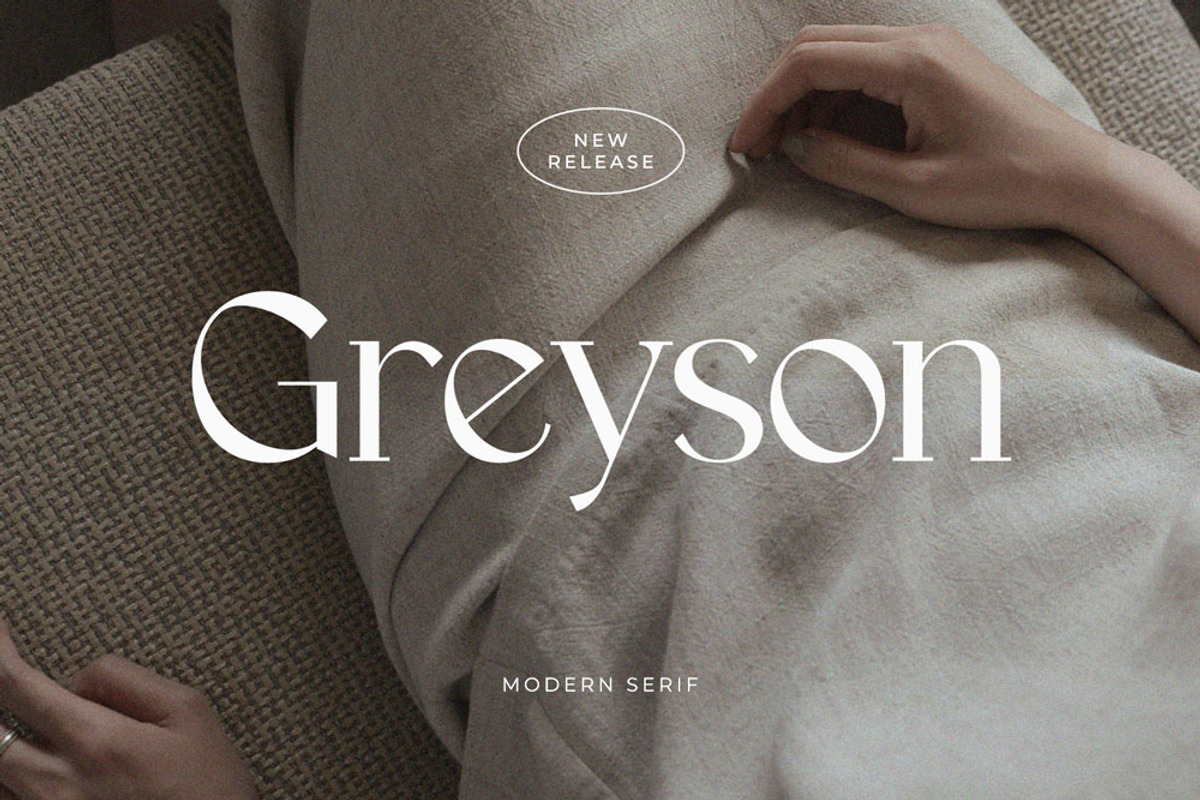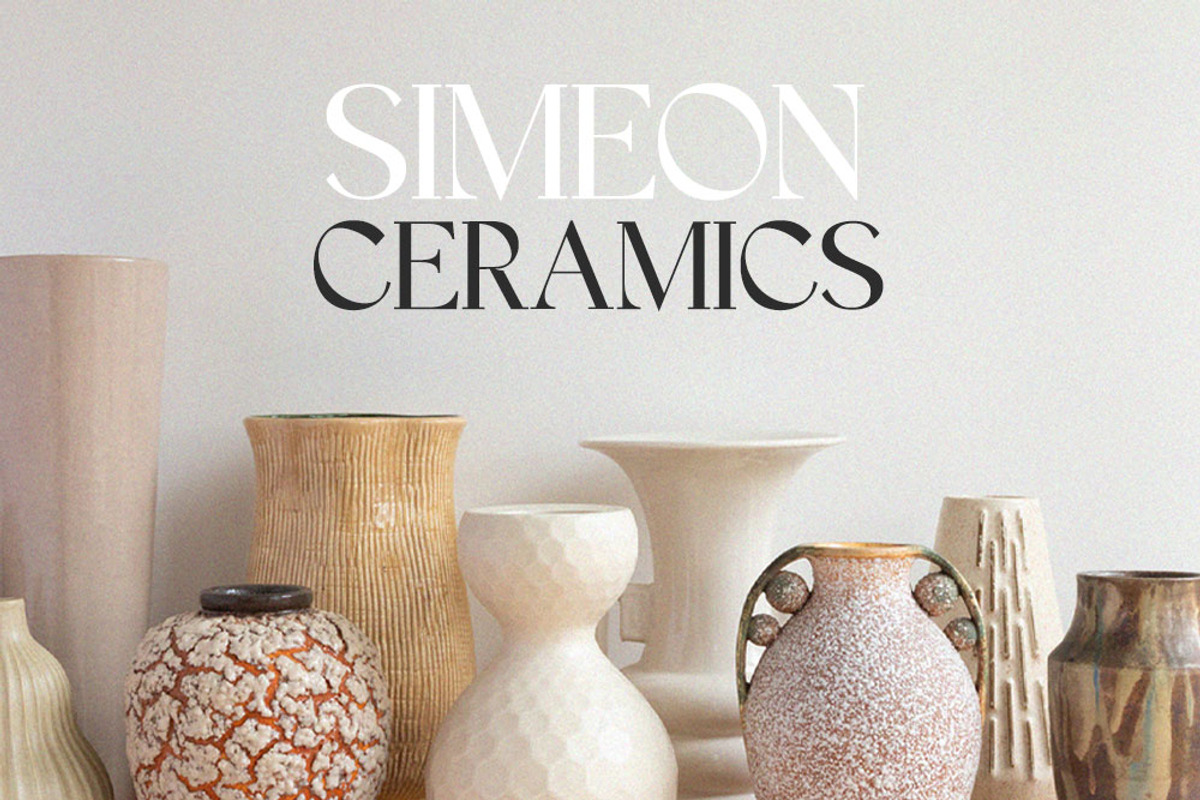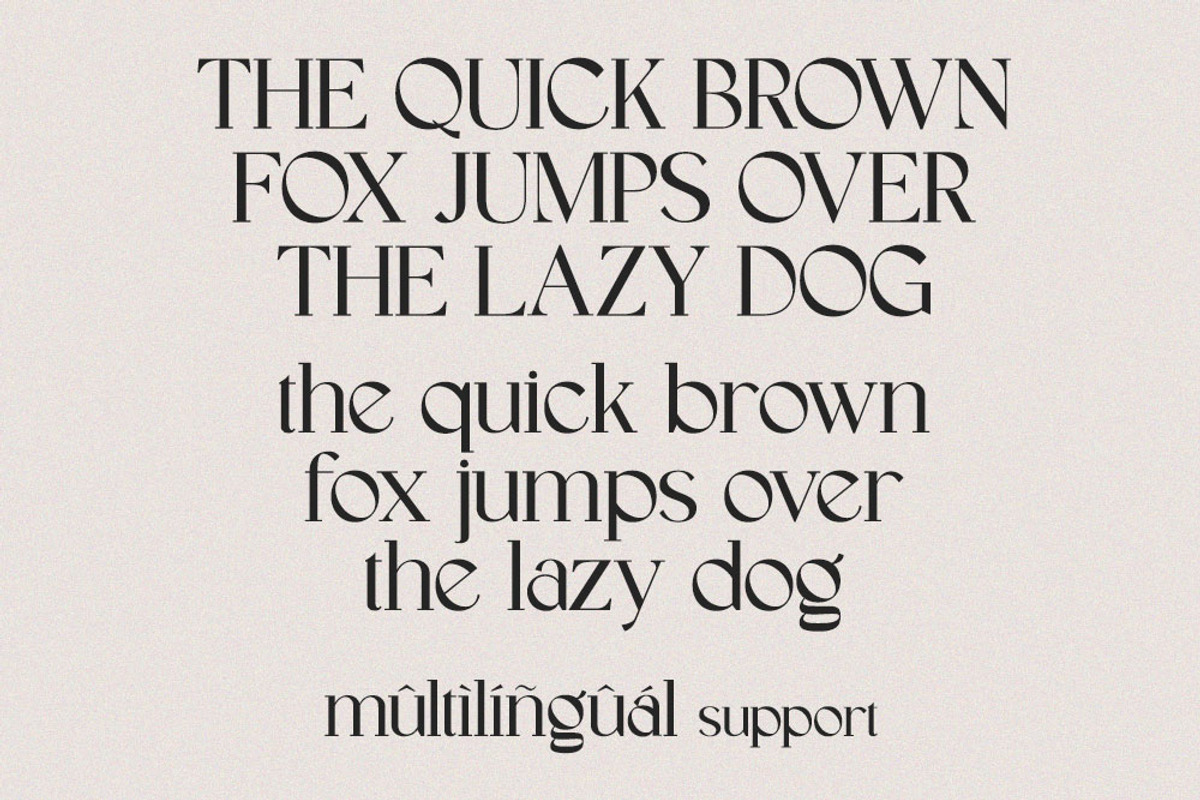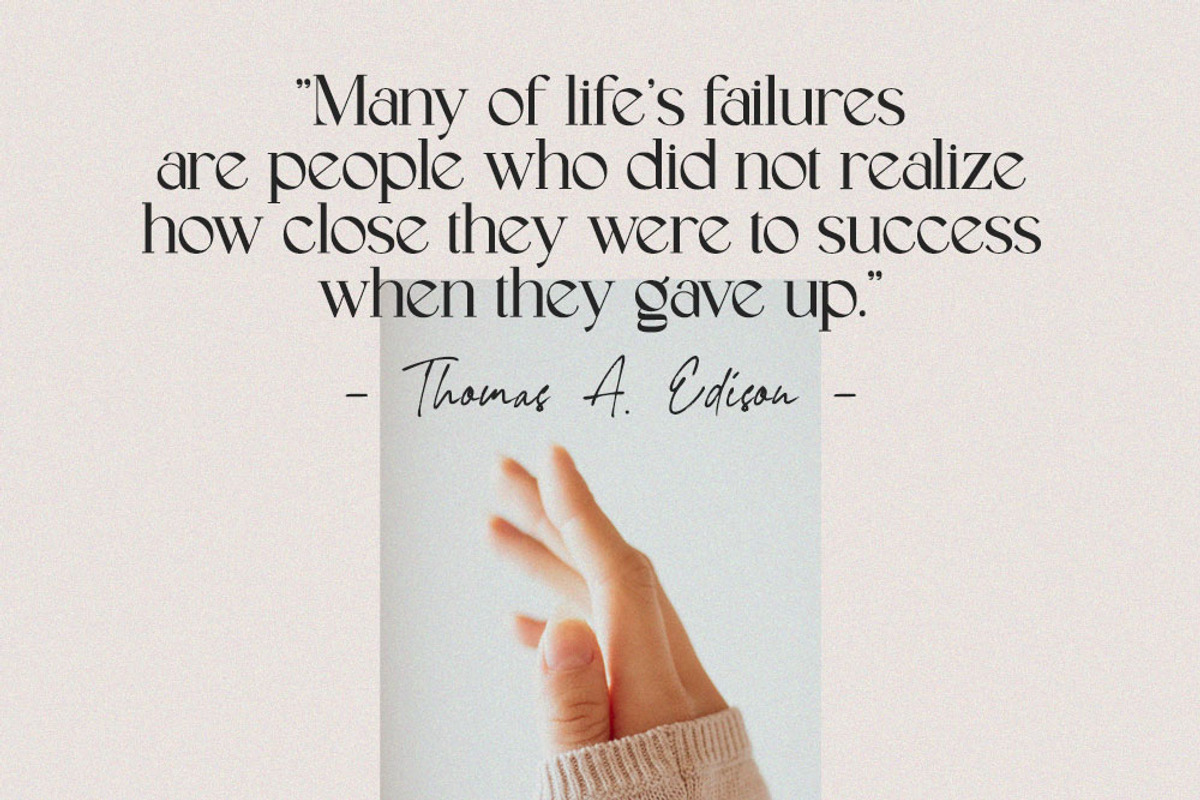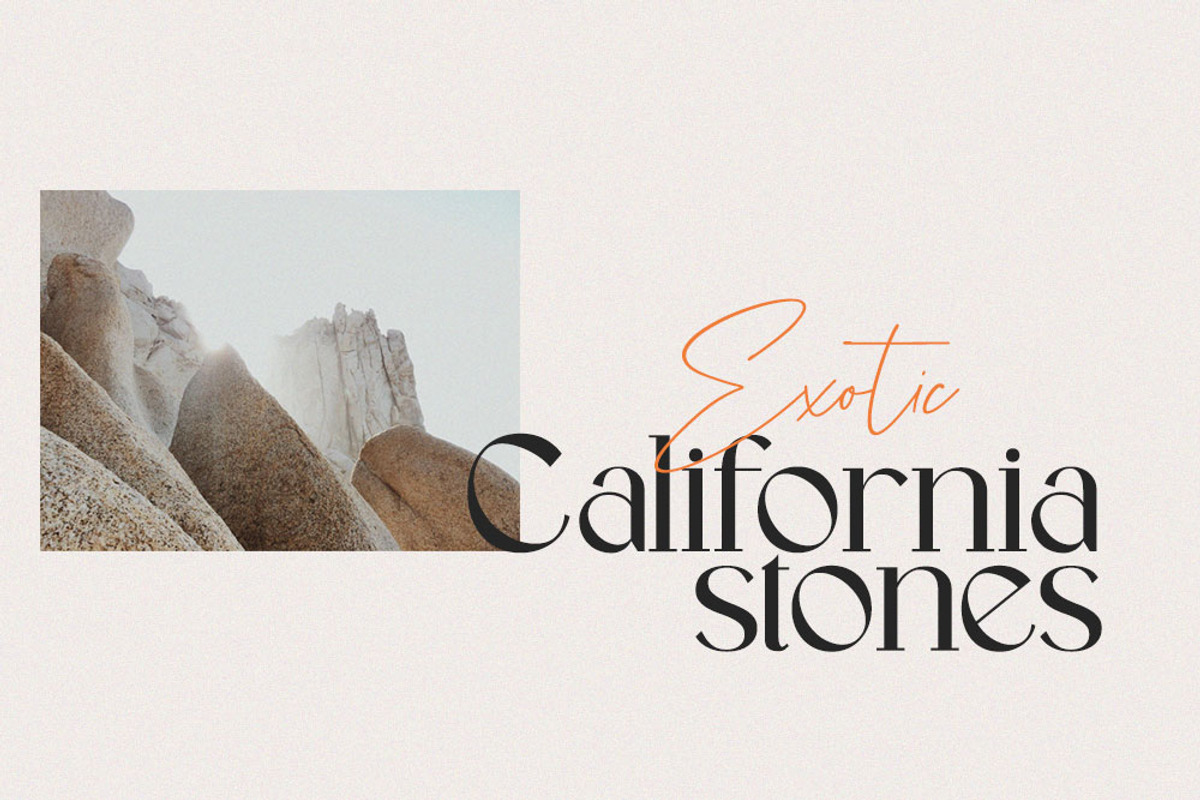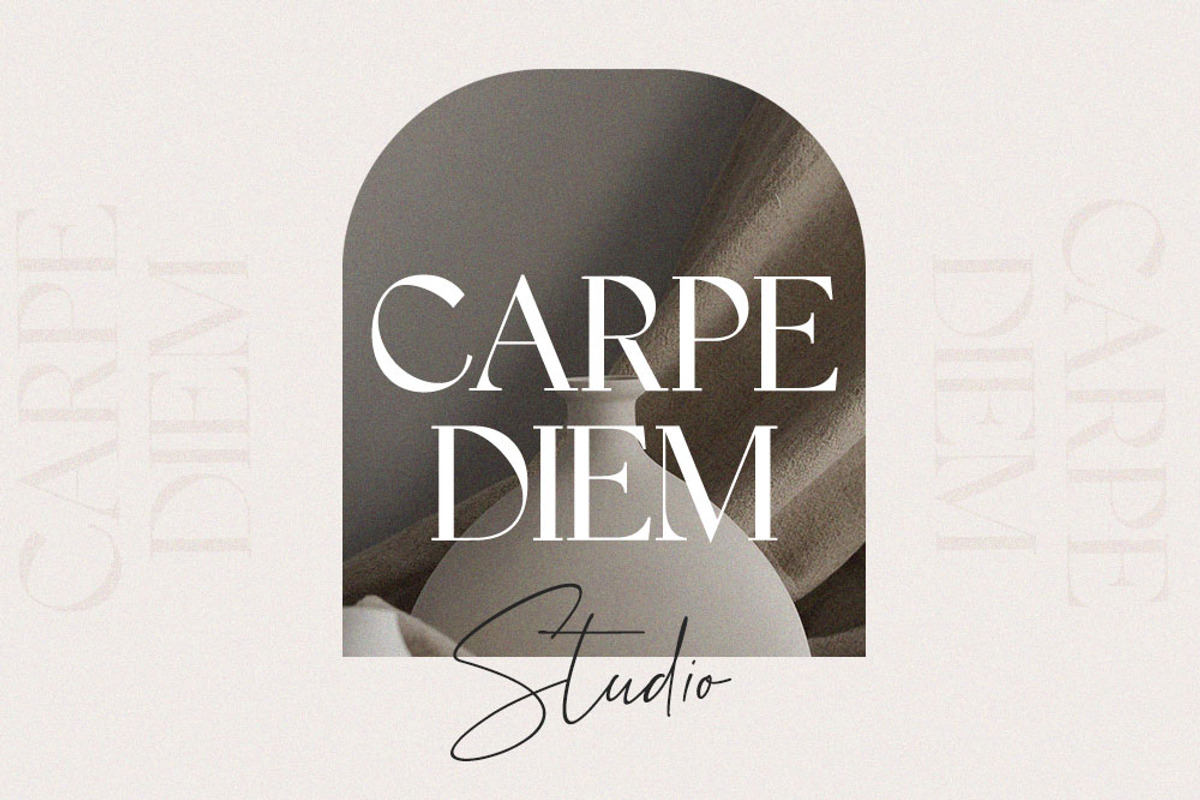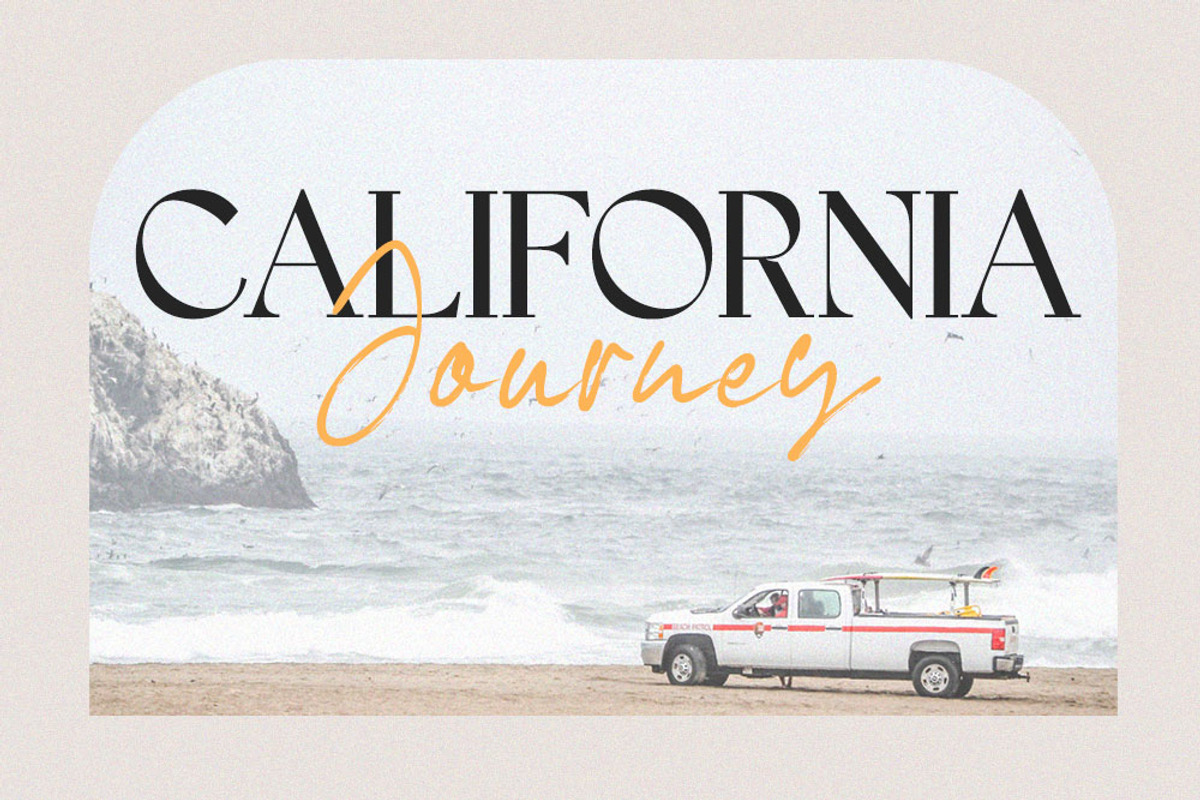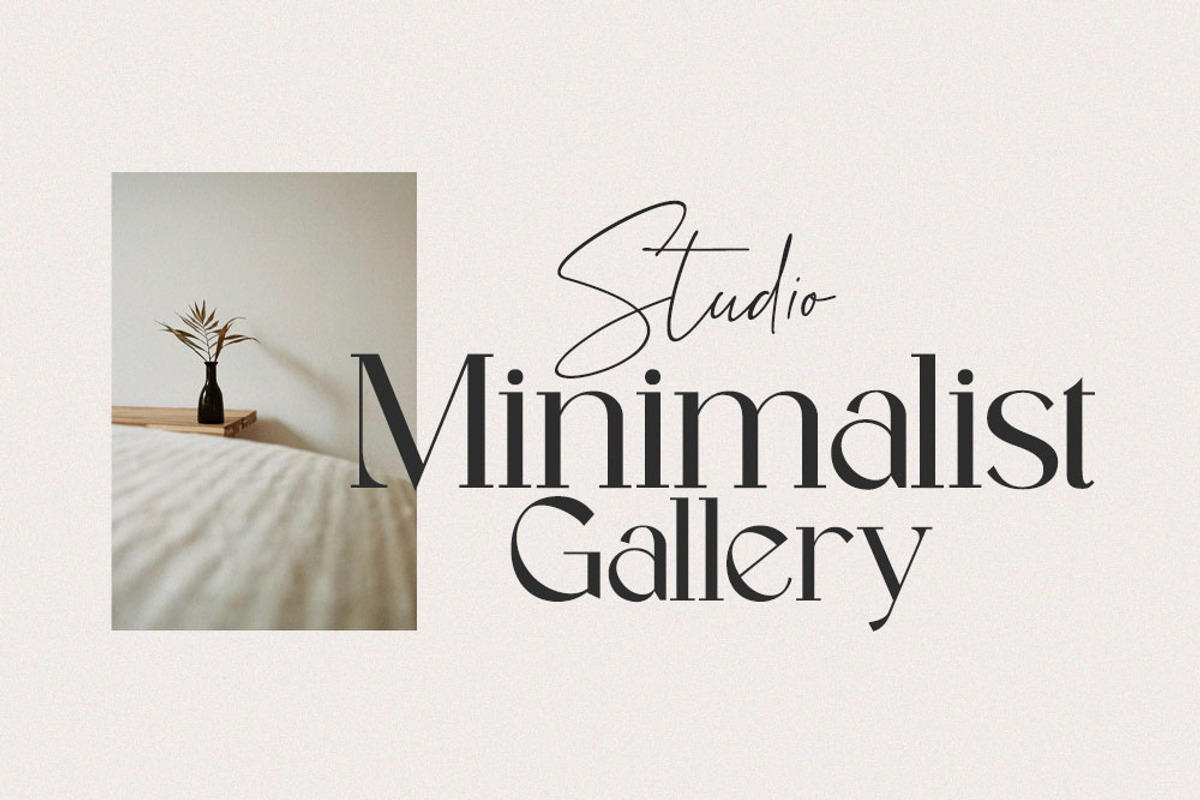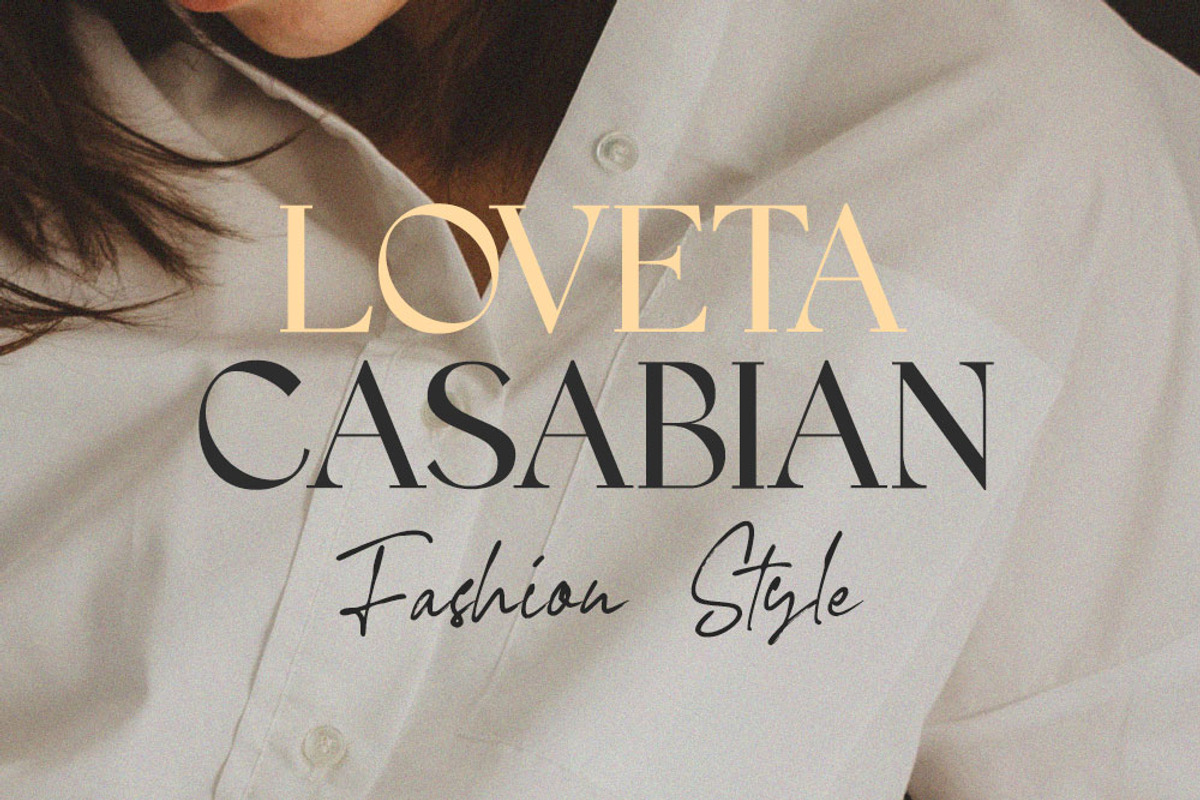
Greyson Modern Serif
Greyson Fonts includes uppercase letters, lowercase letters, numerals, a large range of punctuation and multilingual support. This font look elegant and classy with modern classic style. It is perfect for branding, poster, web design, branding, illustrations, badges, logos, headlines, invitiation and more.